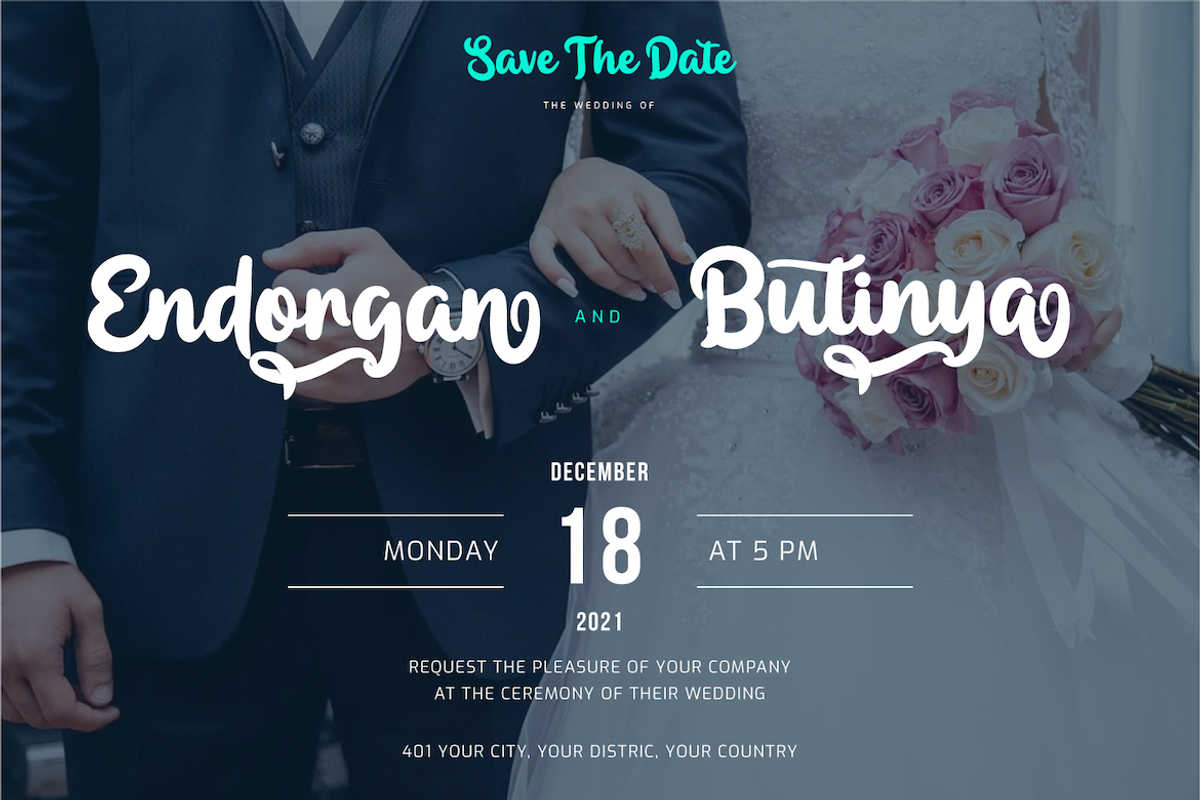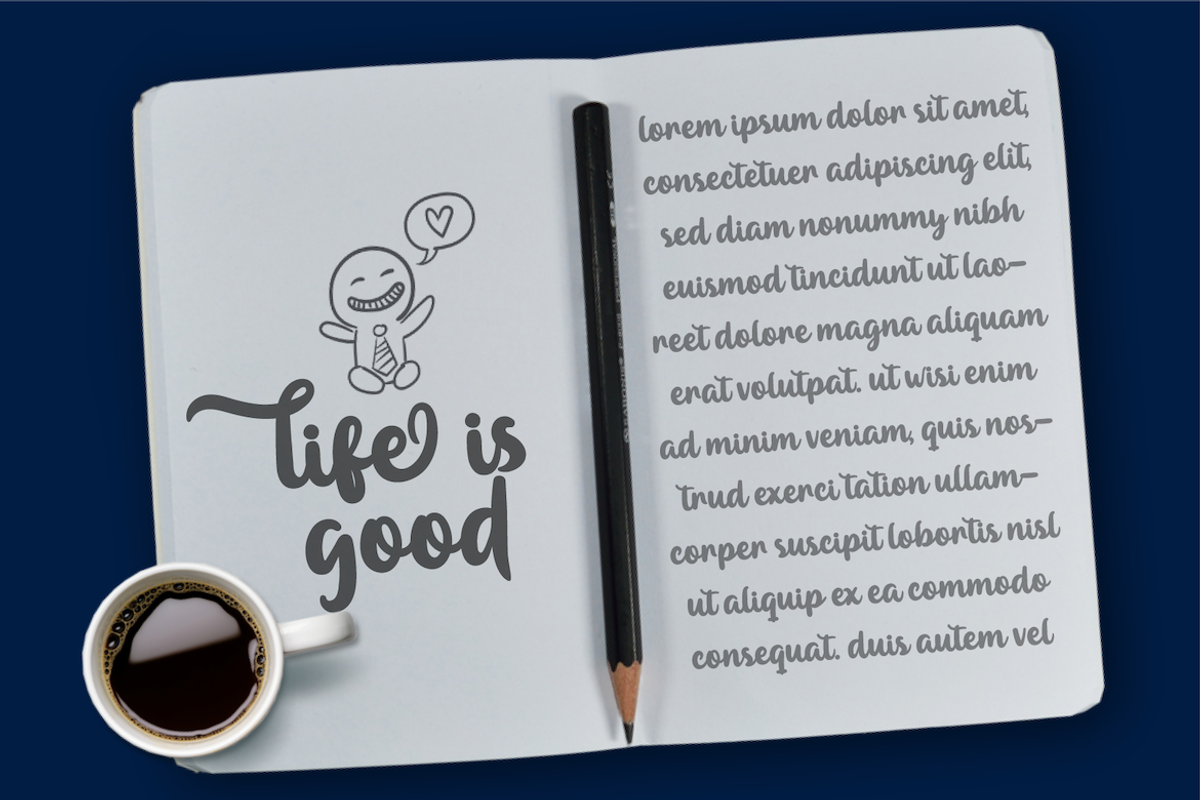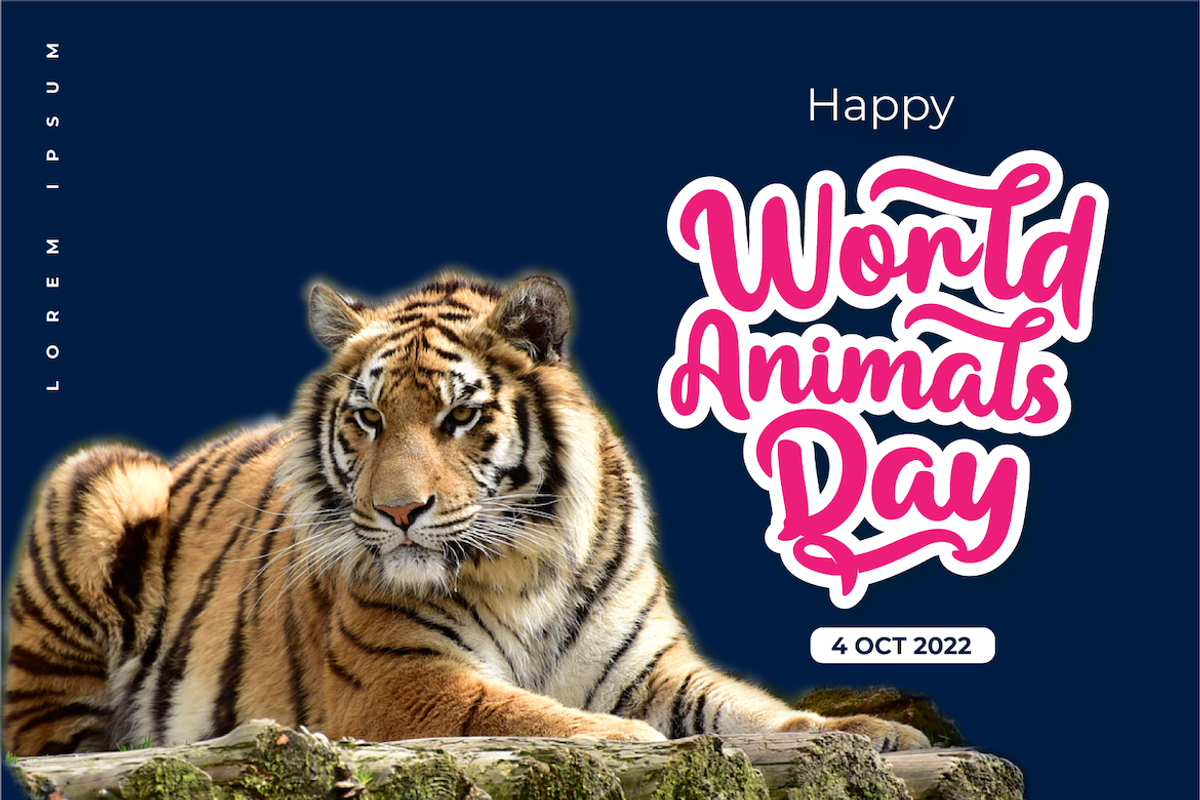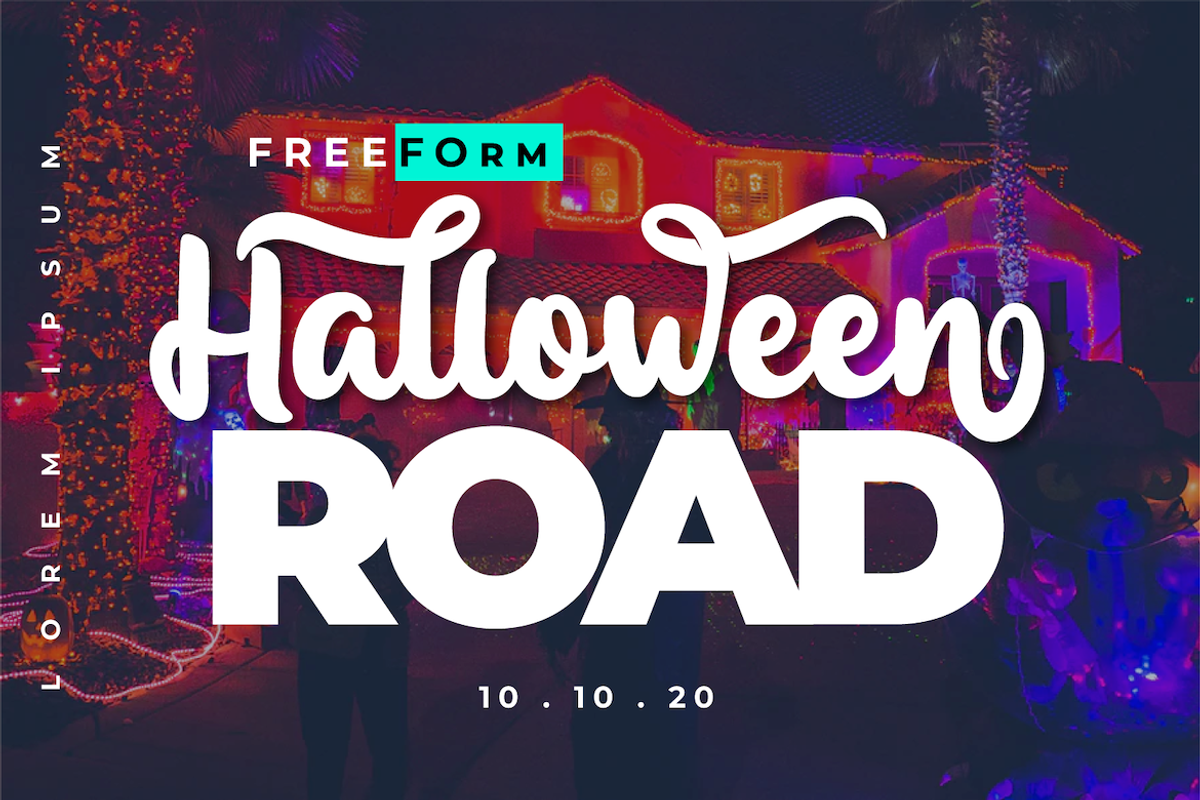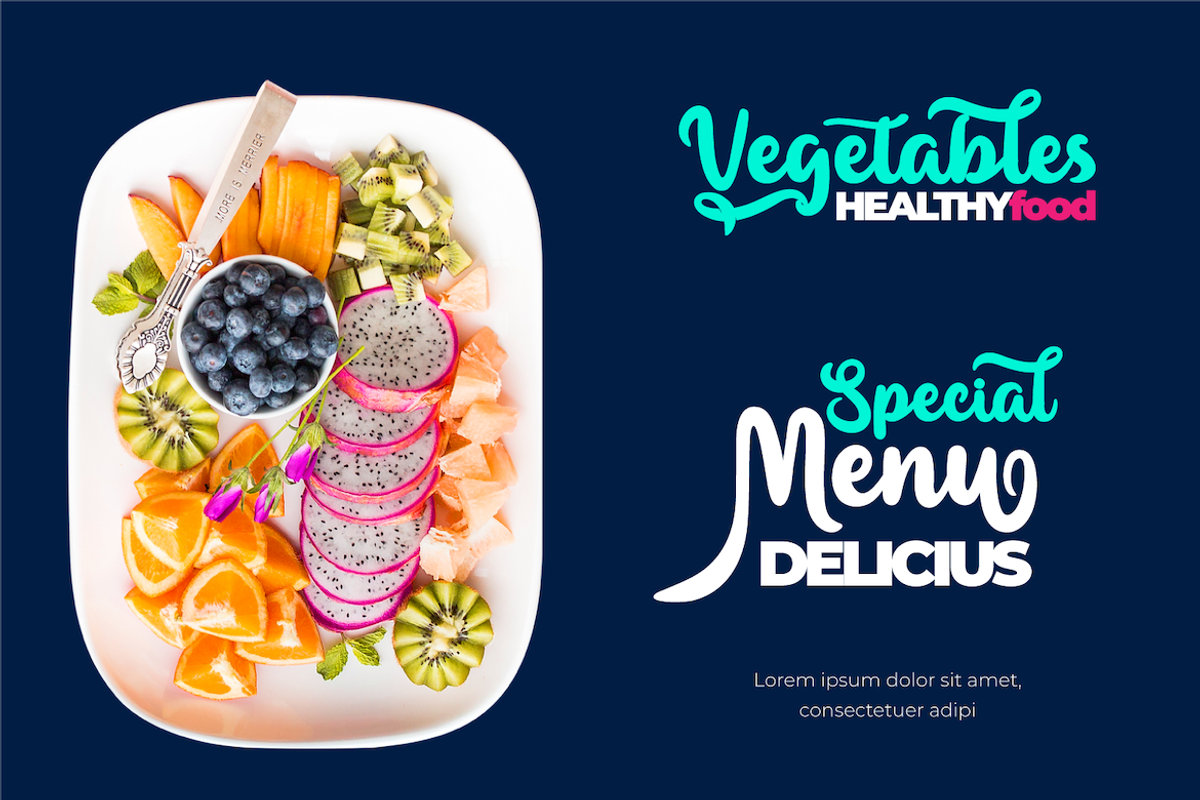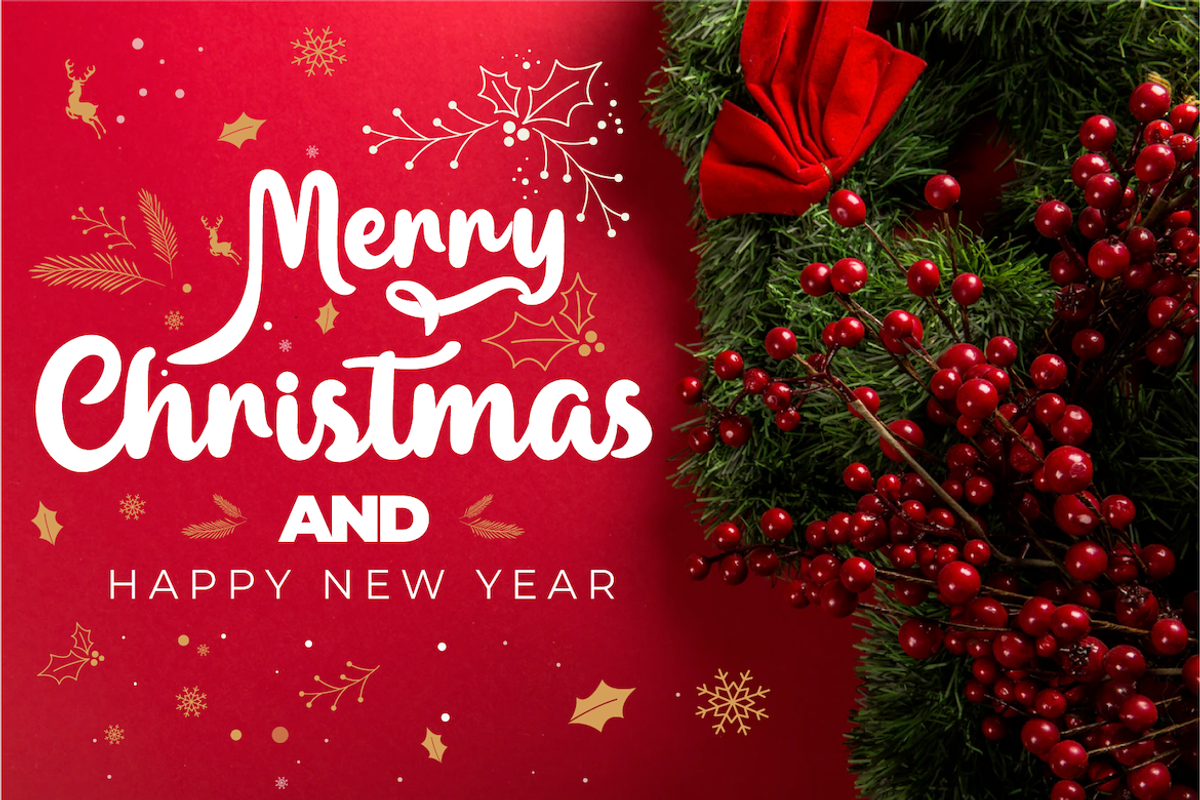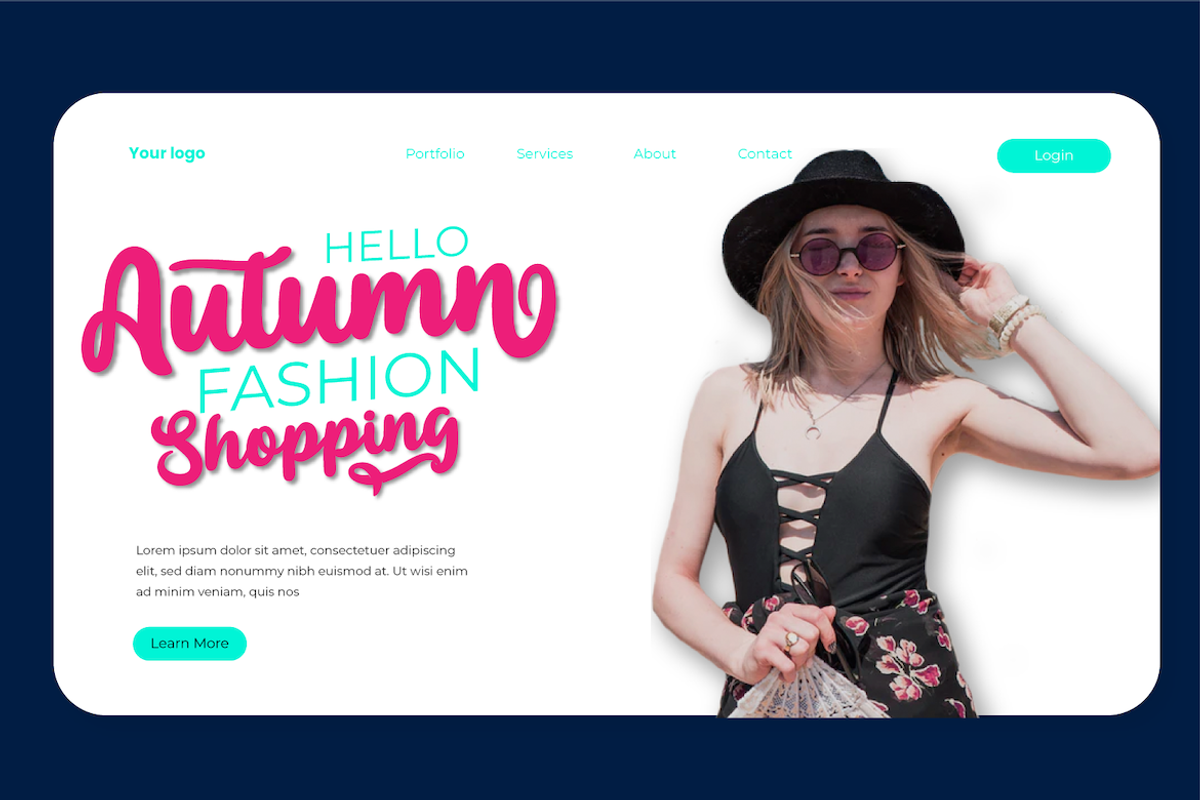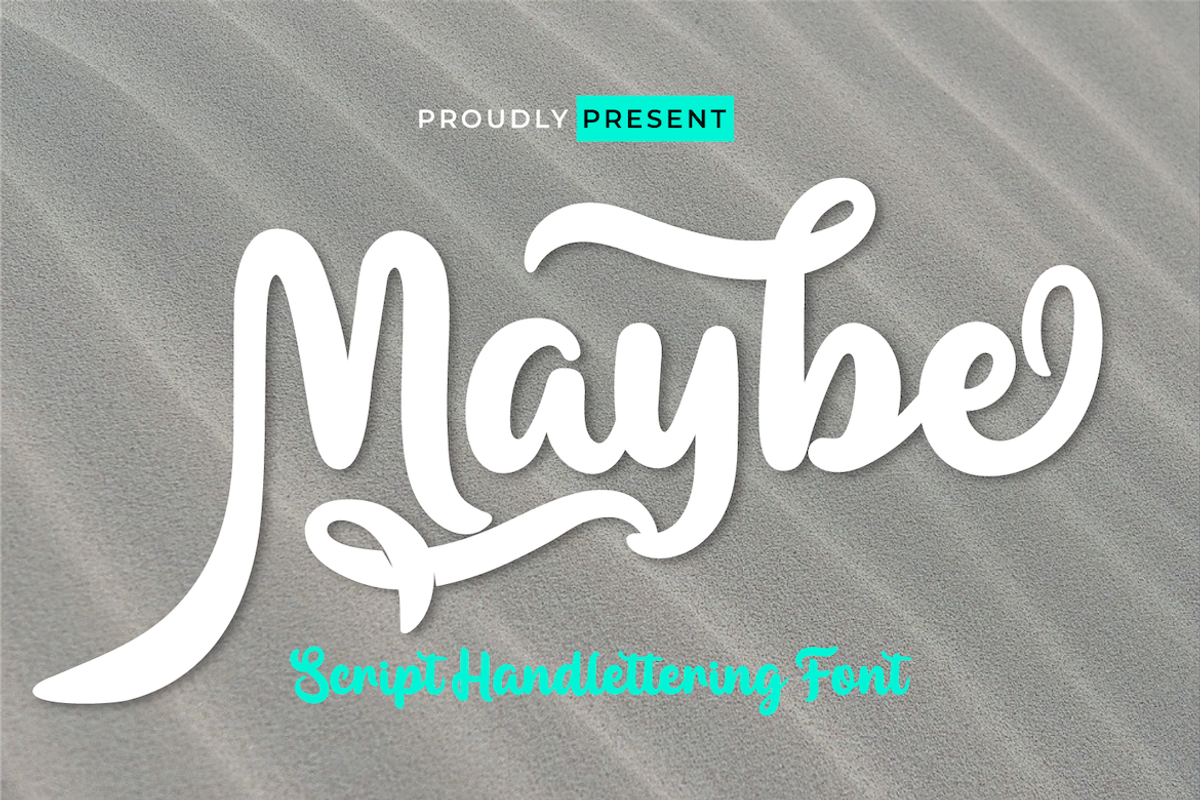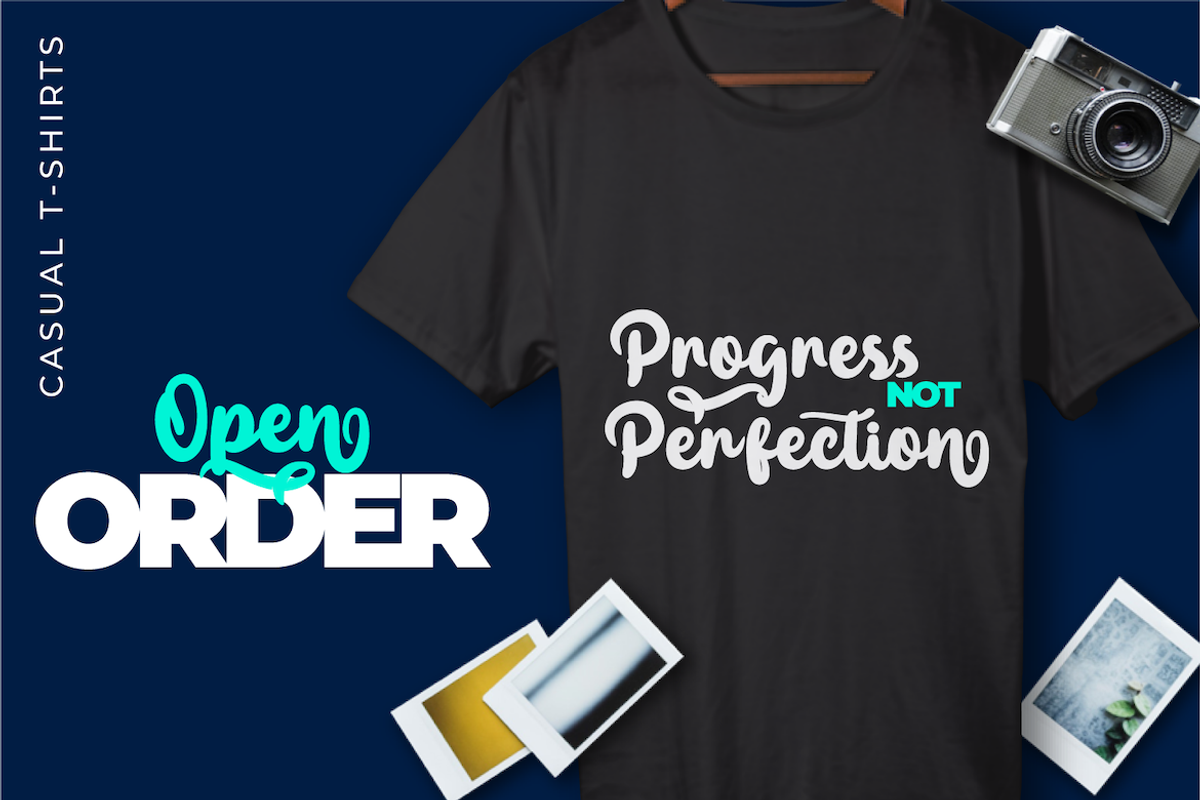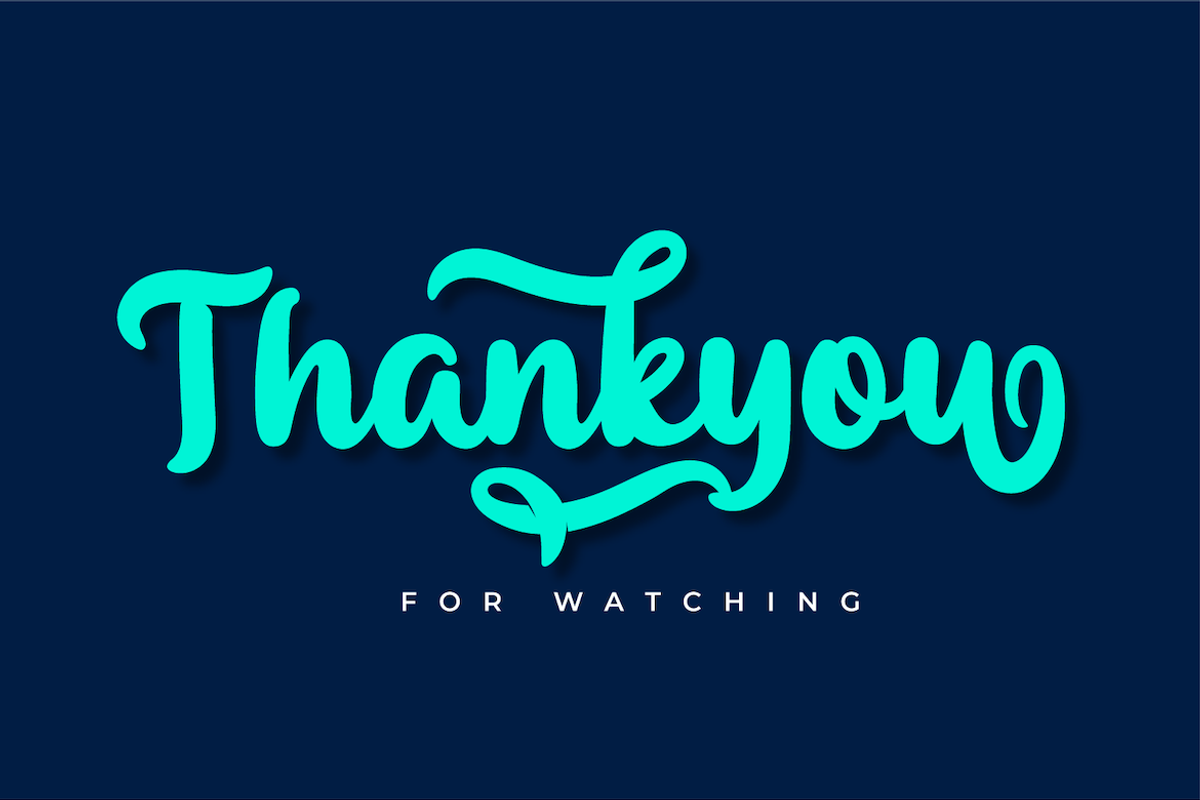
Maybe
Introducing our new Font called Maybe
This font has a young, powerful, and energetic character, nuances of Halloween and Christmas, of course, it is very suitable to be used for modern and vintage projects, the beautiful and beautiful lettering makes this font look charming for you to use as a title, logo or anything else in any design project. you.
This charming font also offers the beauty of abstract typography harmony for a wide variety of design projects, including digital natural handwriting for designs, quote designs, for social media business designs, advertisements, trademarks, food and beverage promotion banners, text, posters, a signature, and all designs require handwriting or whatever design you want.